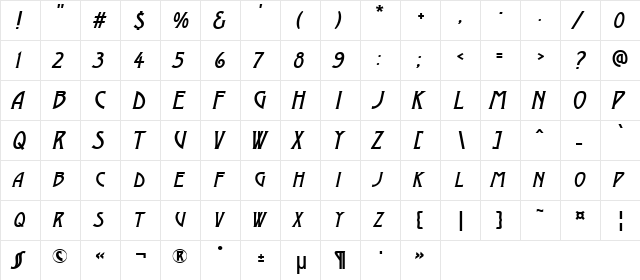
a_ModernoCaps Italic
Design Context for a_ModernoCaps Typeface
a_ModernoCaps is a composed and adaptable typeface that performs quietly and consistently across a wide range of design contexts. Its italic angle brings a sense of urgency and motion to the letterforms.
Pro Tip: Use a_ModernoCaps for emphasis, pull quotes, and subheadings where its slanted energy can add rhythm to the layout.